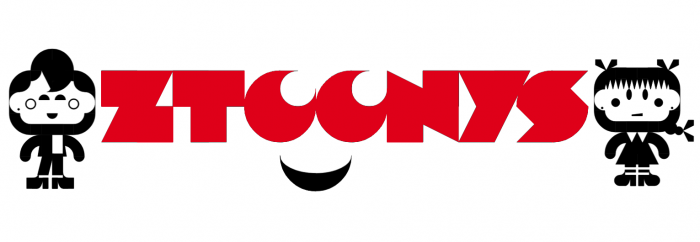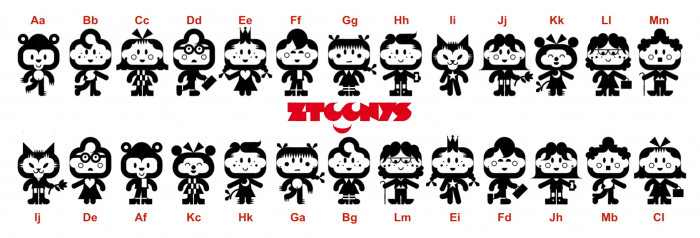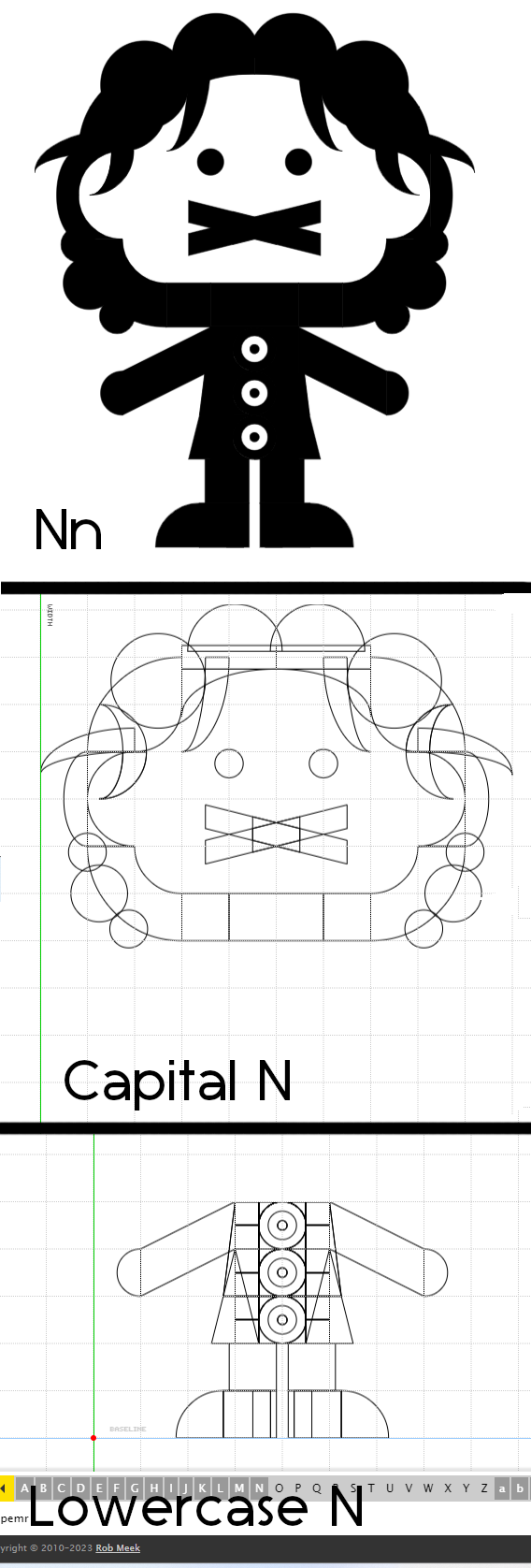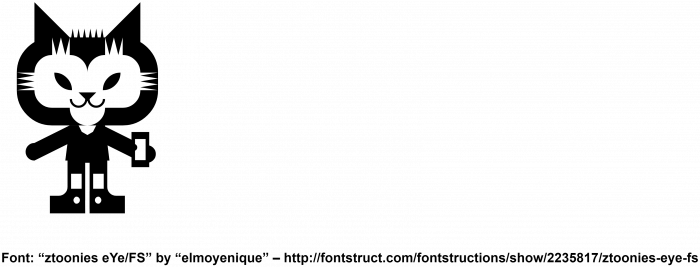
Little picture game for one little pretty friend. To see the characters correctly, please type: Aa Bb Cc Dd Ee Ff Gg Hh Ii Jj Kk Ll Mm. Then you can start freely combine the heads (uppercase A to M) with other bodies (lowercase a to m) and thus get funny surprises. There are up to 169 possible different combinations, so have a good time with them.
I made one in the FontStructor. If you add both, then there will be 196 combinations.
Top shows the full character, Middle shows the head with outline, Bottom shows the body with outline.
@Bryndan W. Meyerholt (BWM): Wow! What detail on your part, thank you! I love this character that you've done. He has a resemblance to Edward Scissorhands which I liked. I think that in a few days I'll add some more characters so that a certain little person can continue playing with them.